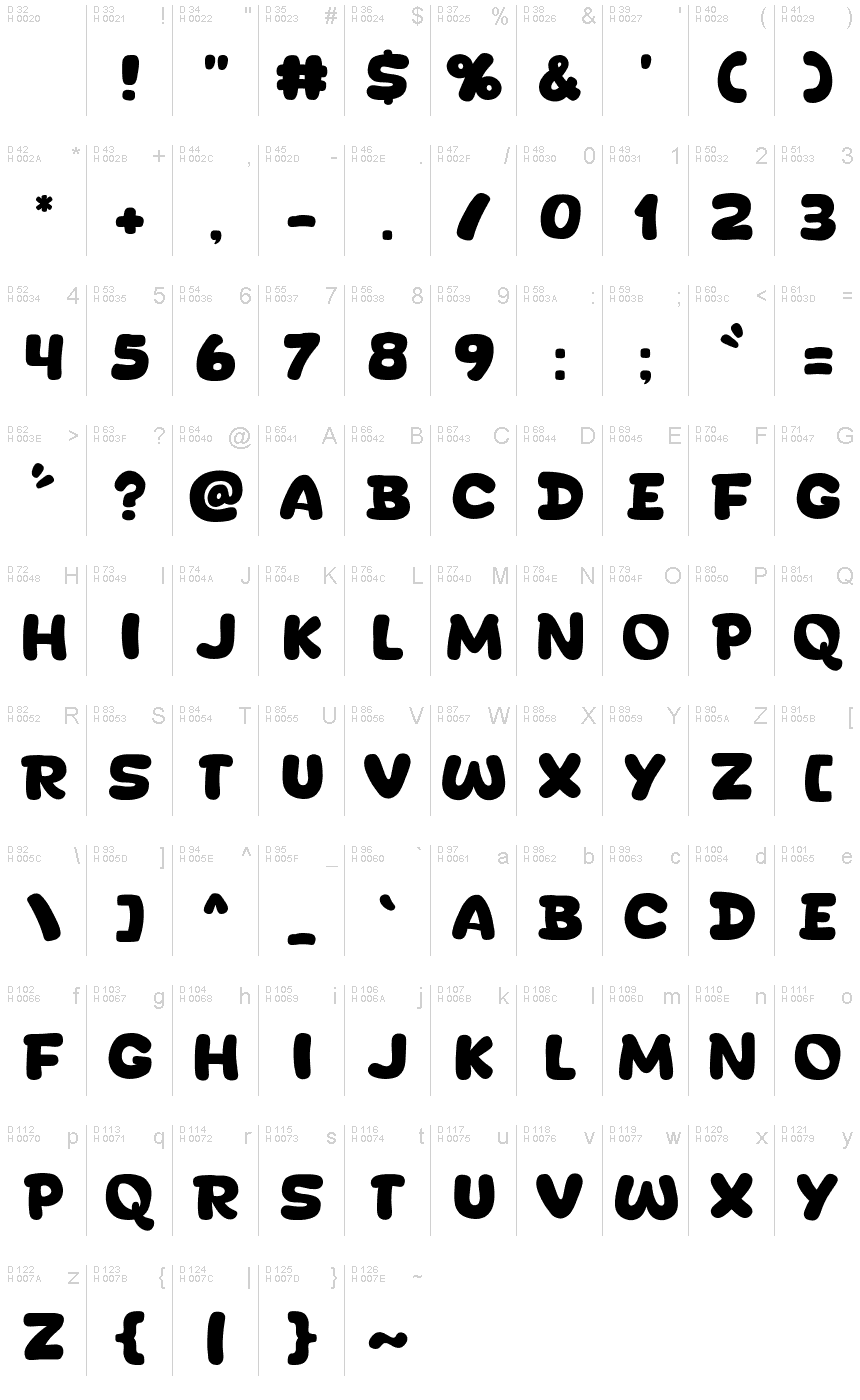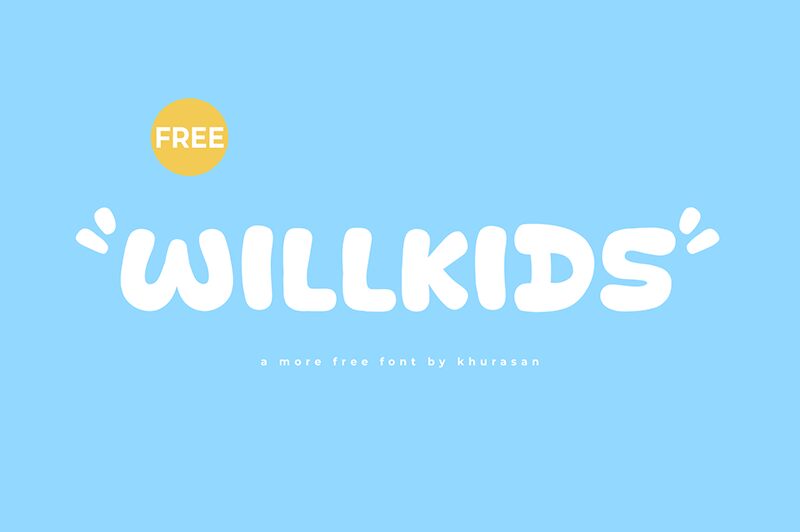
Willkids
Willkids, designed by Khurasan, is a playful and dynamic display font that immediately captures the imagination with its cartoon-style aesthetics. With bold letterforms and a semi-expanded width, this typeface exudes friendliness and approachability. Its rounded edges and varying line weights provide a sense of movement and whimsy, making it an excellent choice for creative projects aimed at younger audiences or those seeking to infuse a touch of lightheartedness into their designs.
The Willkids font strikes the perfect balance between readability and fun, allowing designers to convey messages with both clarity and personality. It's versatile enough for use in everything from children's books to animated web content, event signage to logo design. The font's unique characteristics—bold weight combined with a playful style—ensure that any text stands out while maintaining an air of casual charm.
Embrace the delightful character of Willkids for your next project where you want your message not just seen but also felt with joyous energy.
The Willkids font strikes the perfect balance between readability and fun, allowing designers to convey messages with both clarity and personality. It's versatile enough for use in everything from children's books to animated web content, event signage to logo design. The font's unique characteristics—bold weight combined with a playful style—ensure that any text stands out while maintaining an air of casual charm.
Embrace the delightful character of Willkids for your next project where you want your message not just seen but also felt with joyous energy.